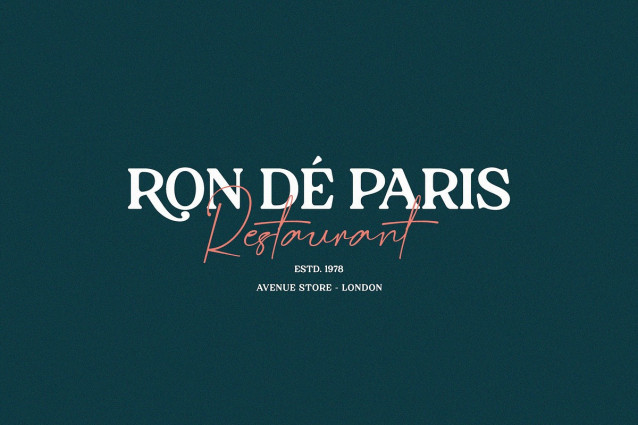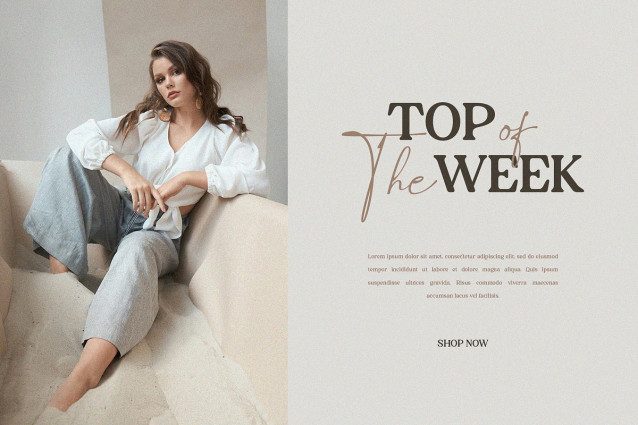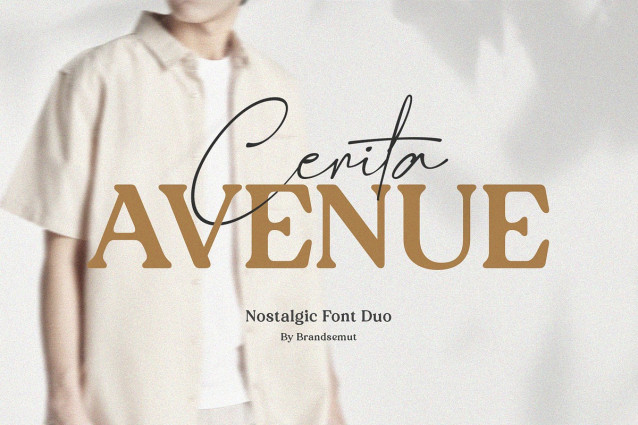
Avenue Font Duo
Avenue Font Duo is a classy font duo that includes a signature script and a serif typeface – already matched up and ready to be used together for your next design! Cerita Avenue best used as a display for headings, logos, branding, magazines, product packaging and invitations, etc.
Cerita Avenue was built with OpenType features and includes ligatures, alternates, numbers, punctuation, and it also supports other languages.